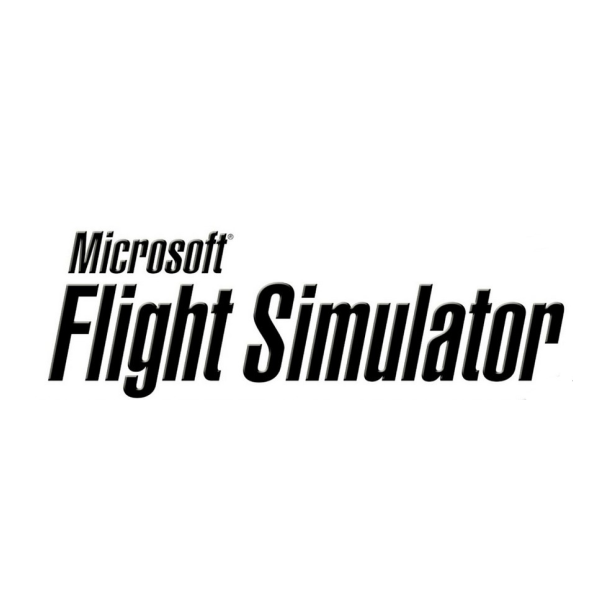
Microsoft Flight Simulator Font
Fonts in UseMicrosoft Flight Simulator is a highly realistic flight simulation video game that allows players to explore the world and pilot various aircraft. It was developed by Asobo Studio and published by Xbox Game Studios.
The game logo of Microsoft Flight Simulator likely features the font Helvetica Ultra Compressed, manually italicized. Additional details are available here.